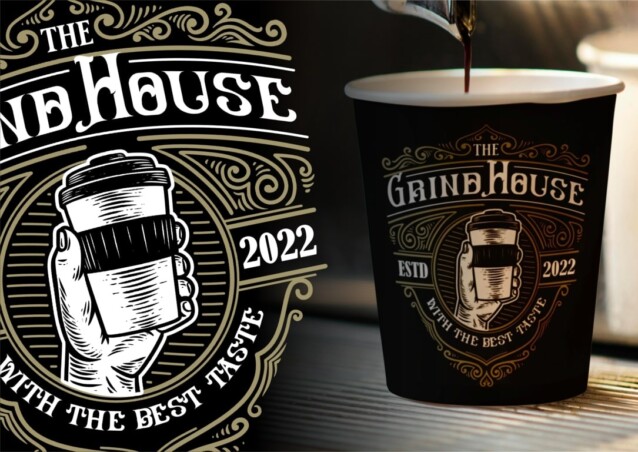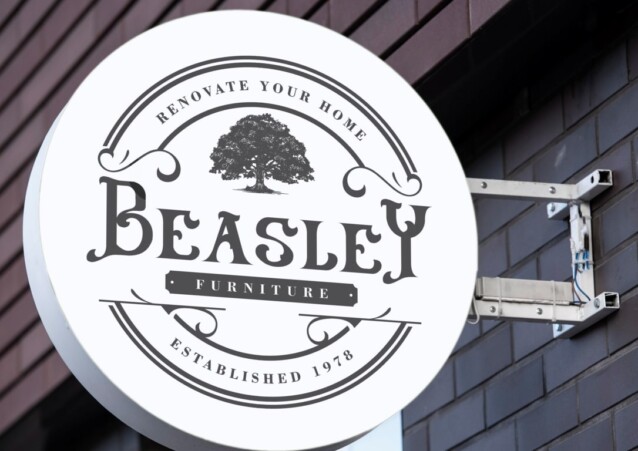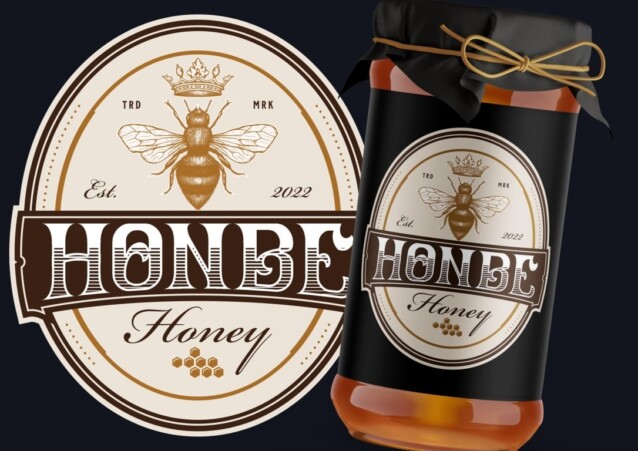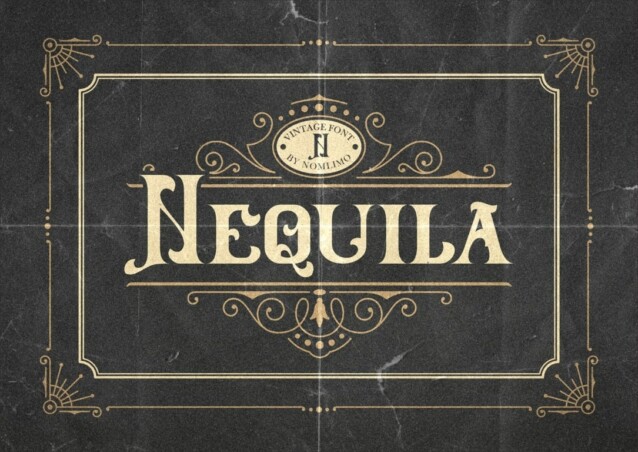
Nequila Font
Nequila Font – is the quintessential blackletter font that encapsulates the enchanting spirit of the holiday season. Be captivated by its exquisite style and employ it to craft stunning wedding invitations, elegant stationery art, eye-catching social media posts, and a myriad of other creative projects. Let Nequila add a touch of timeless charm to your designs and watch them shine with unmatched beauty.